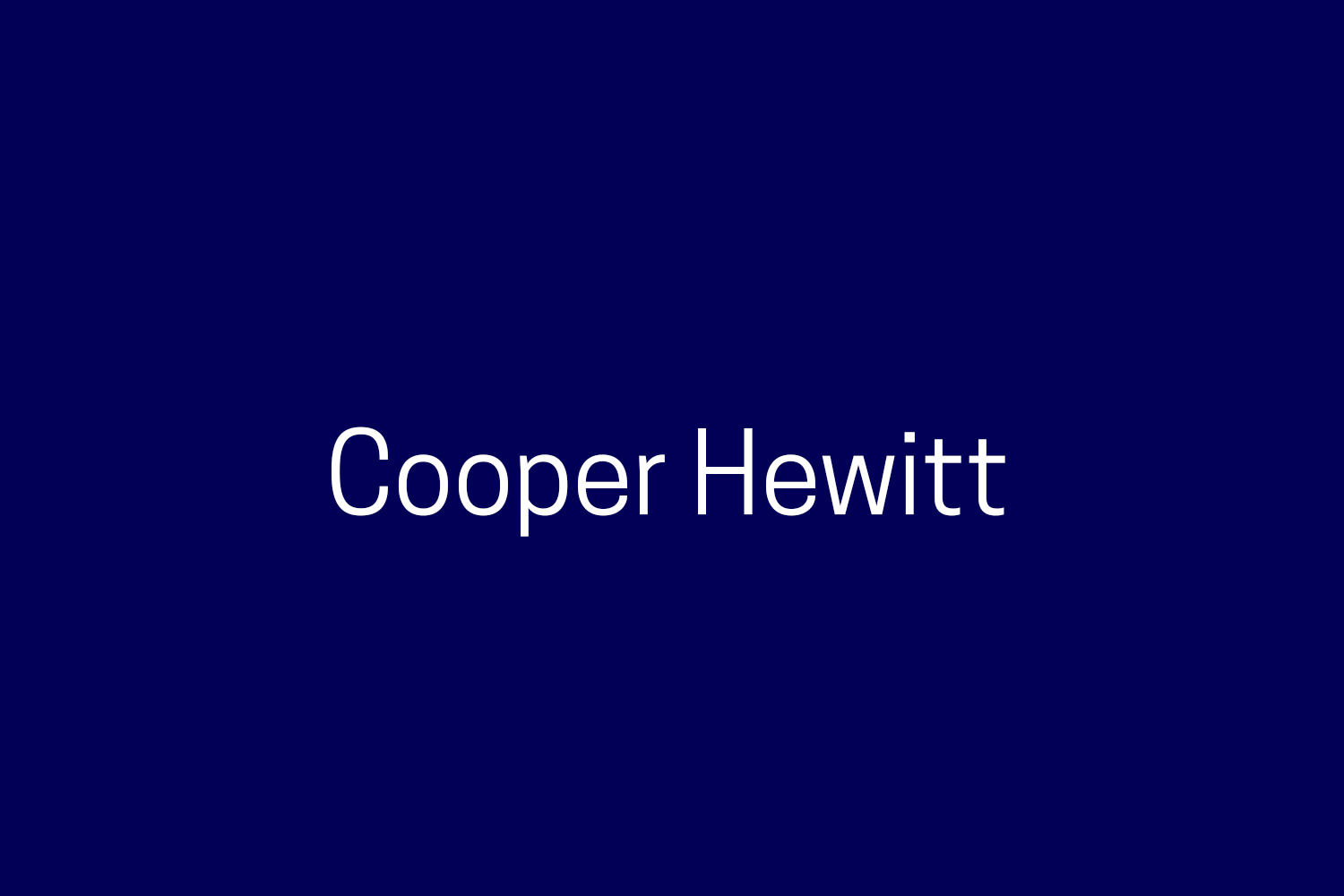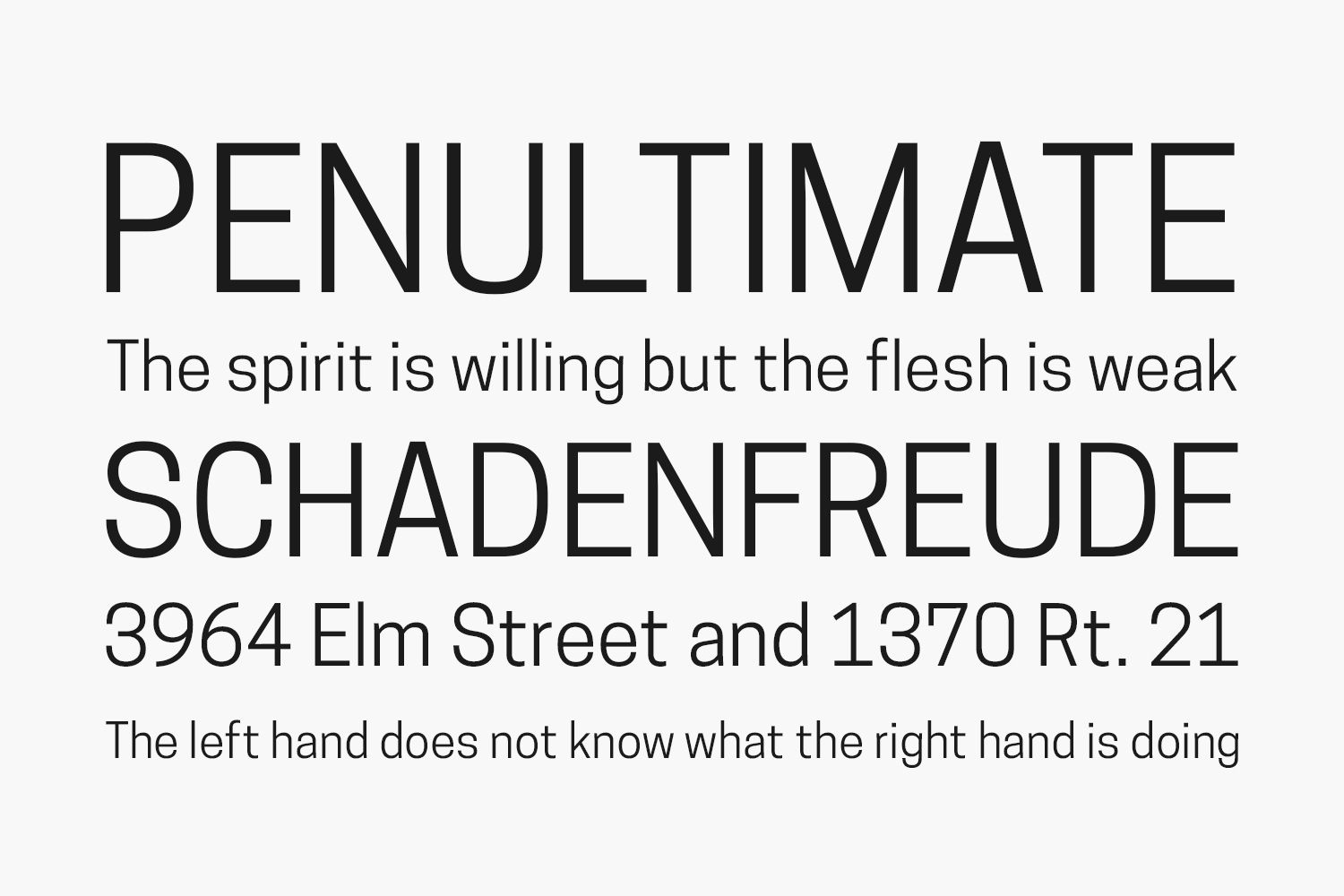
Cooper Hewitt Free Font Family is a contemporary sans serif, with characters composed of modified-geometric curves and arches. Initially commissioned by Pentagram to evolve his Polaris Condensed typeface, Chester Jenkins created a new digital form to support the newly transformed museum.